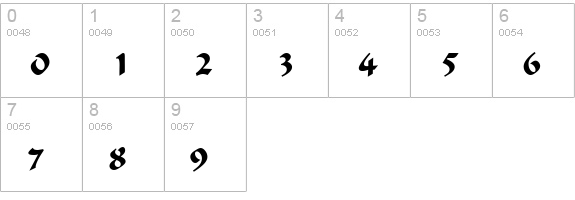
Ignacious Regular is the standard, neutral variant in the Ignacious typeface family \xE2\x80\x94 well suited to general body text, paragraphs, and standard typographic work.
Ignacious Regular is a visually stunning font that effortlessly combines elegance with modernity. This versatile typeface is perfect for a wide range of design projects, from sophisticated logos to eye-catching headlines. Its clean and balanced letterforms exude a sense of professionalism and refinement, making it a go-to choice for designers seeking to create a polished and timeless look. With its generous x-height and well-proportioned characters, Ignacious Regular offers excellent legibility across various sizes and mediums. Whether used in print or digital contexts, this font remains crisp and clear, ensuring maximum readability for your audience. The free availability of Ignacious Regular makes it even more appealing to designers and creatives. You can easily download this font for free at FontsMarket.com, a leading online platform for high-quality and diverse typography. By offering Ignacious Regular as a free download, FontsMarket.com aims to contribute to the creative community and empower designers with the tools they need to bring their visions to life. In addition to its aesthetic appeal and accessibility, Ignacious Regular also boasts a comprehensive character set, including uppercase and lowercase letters, numerals, punctuation marks, and a variety of special characters. This extensive range of glyphs allows for endless design possibilities, ensuring that Ignacious Regular can adapt to any creative concept. Whether you are designing a sleek corporate identity, a stylish magazine layout, or a captivating website, Ignacious Regular is the perfect choice to elevate your project to new heights. With its timeless elegance, exceptional legibility, and free availability, Ignacious Regular is the font that will truly make your designs stand out from the crowd.